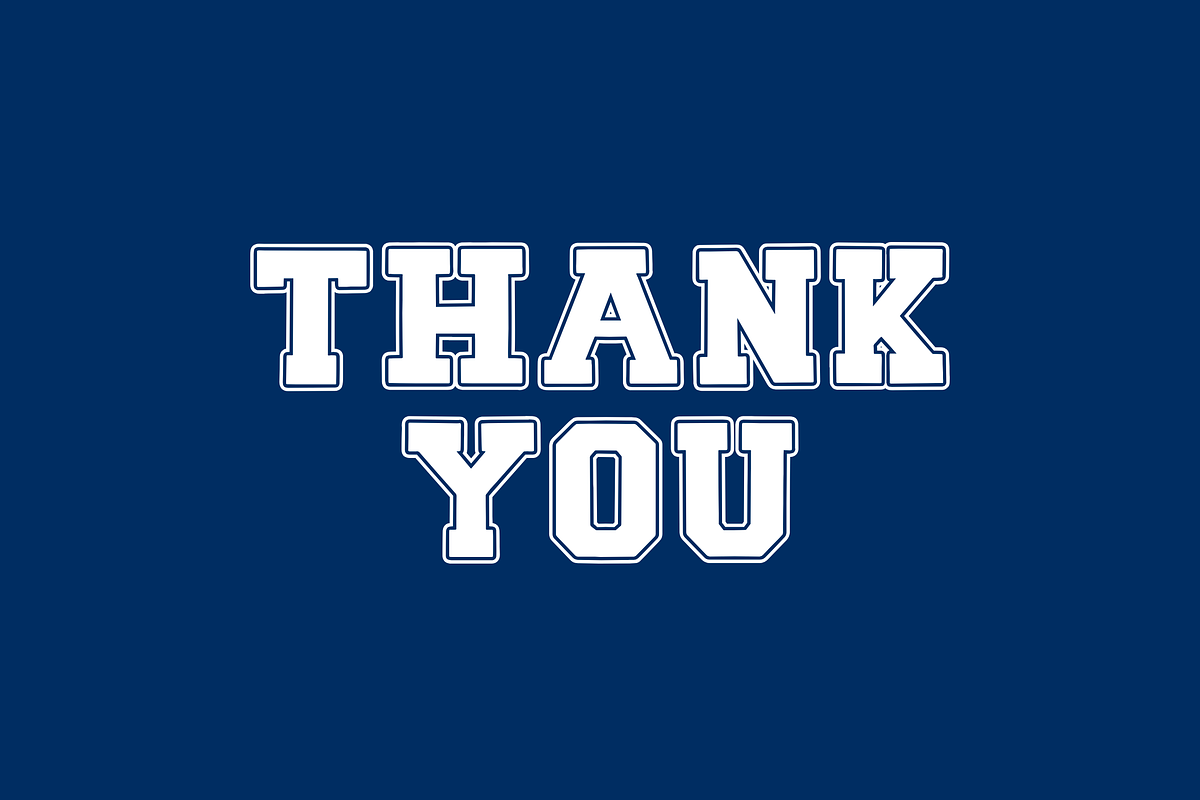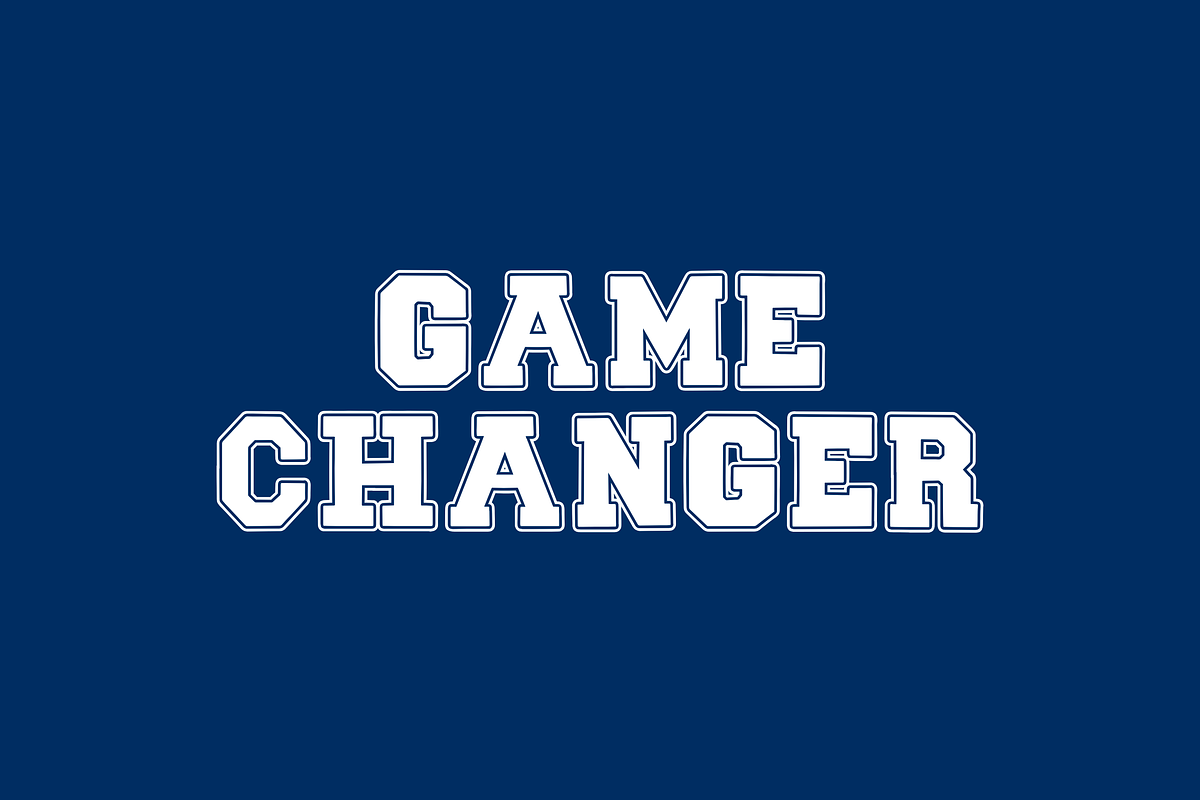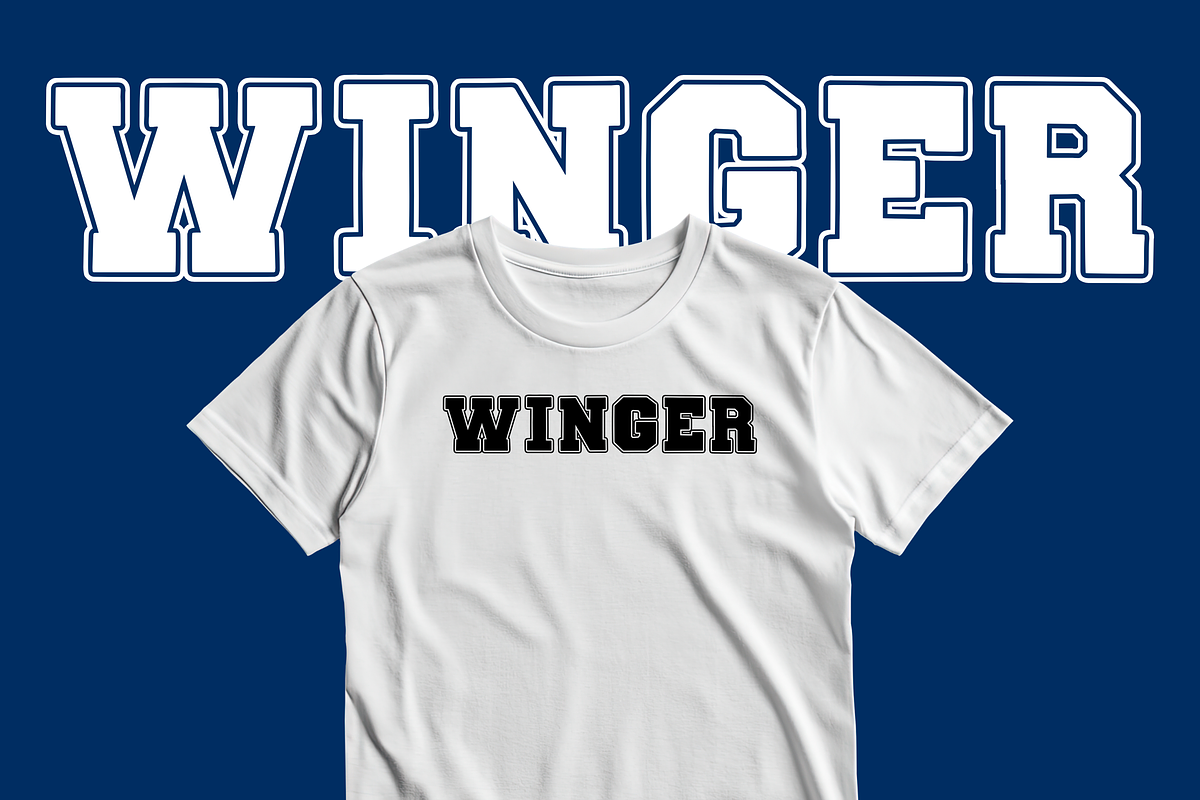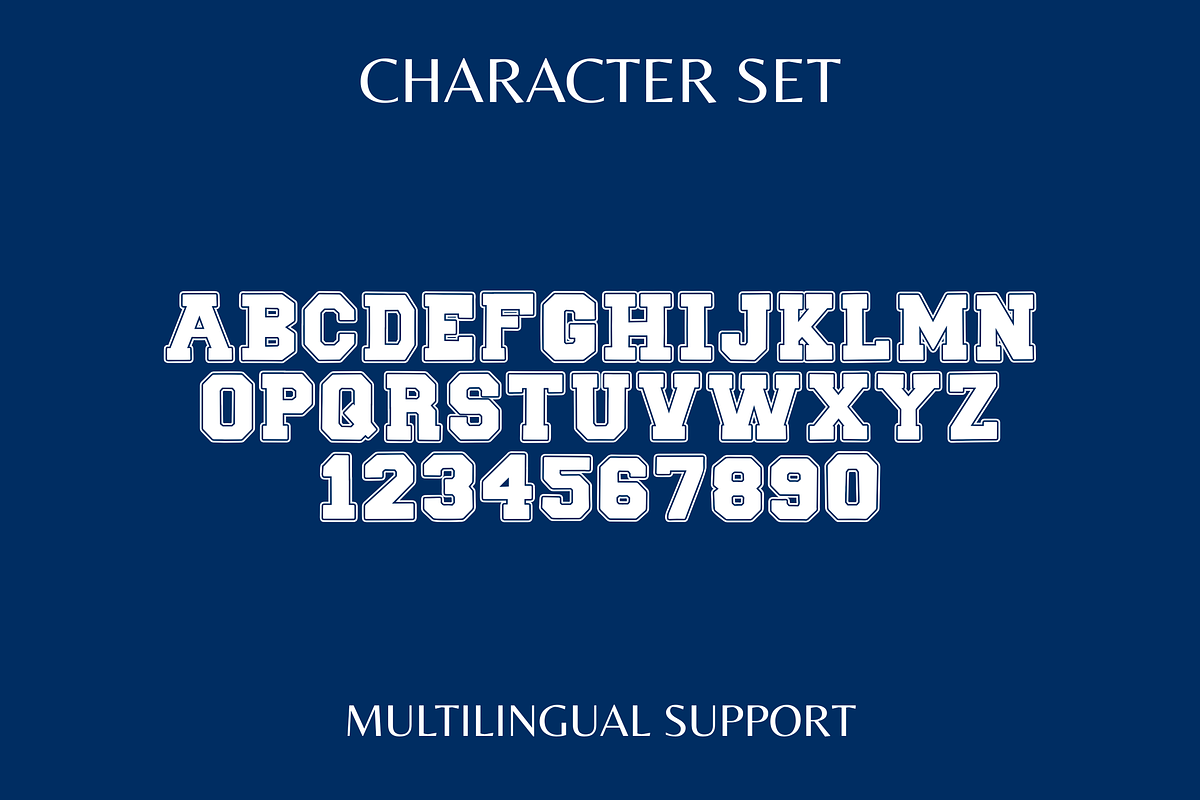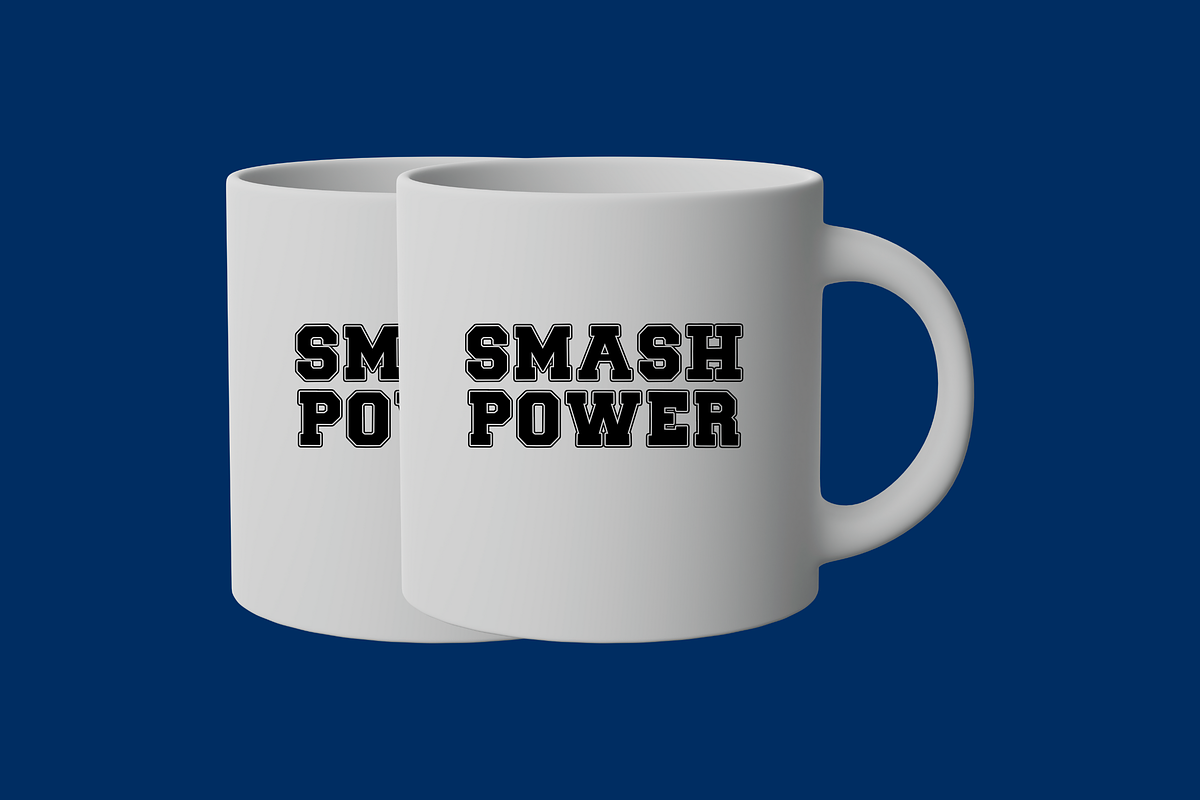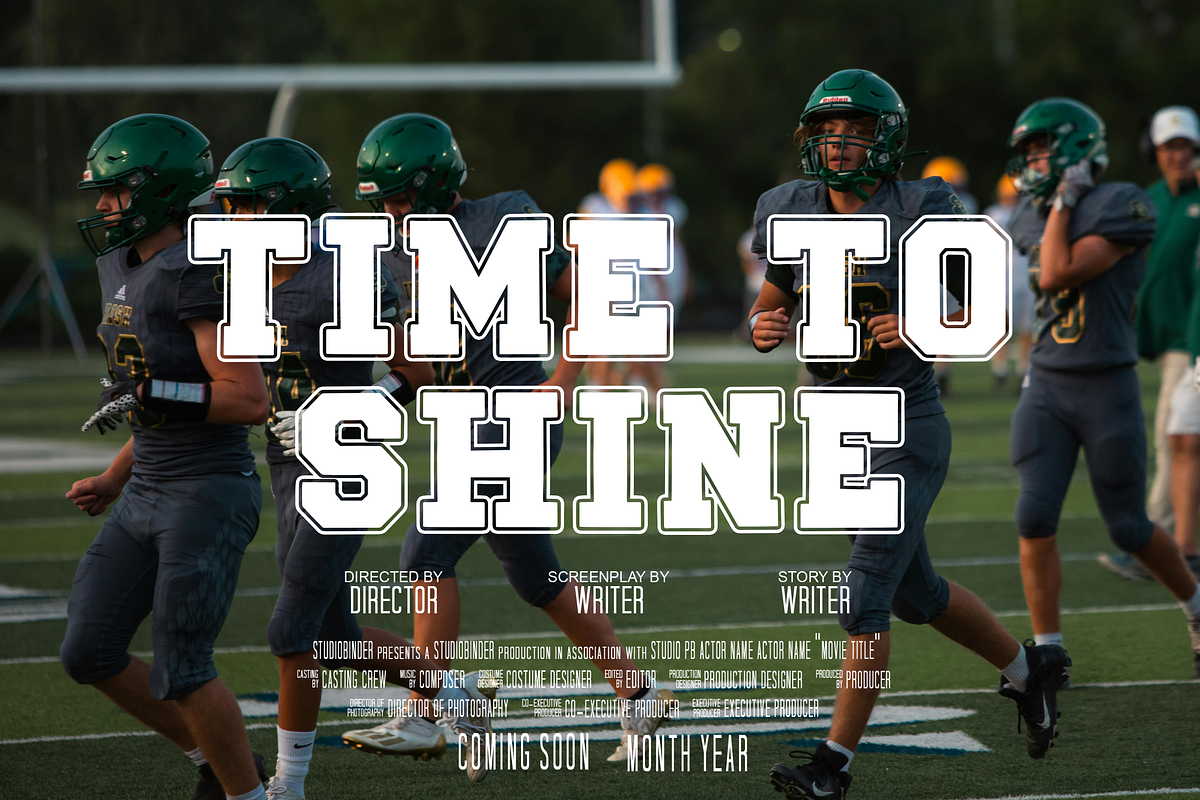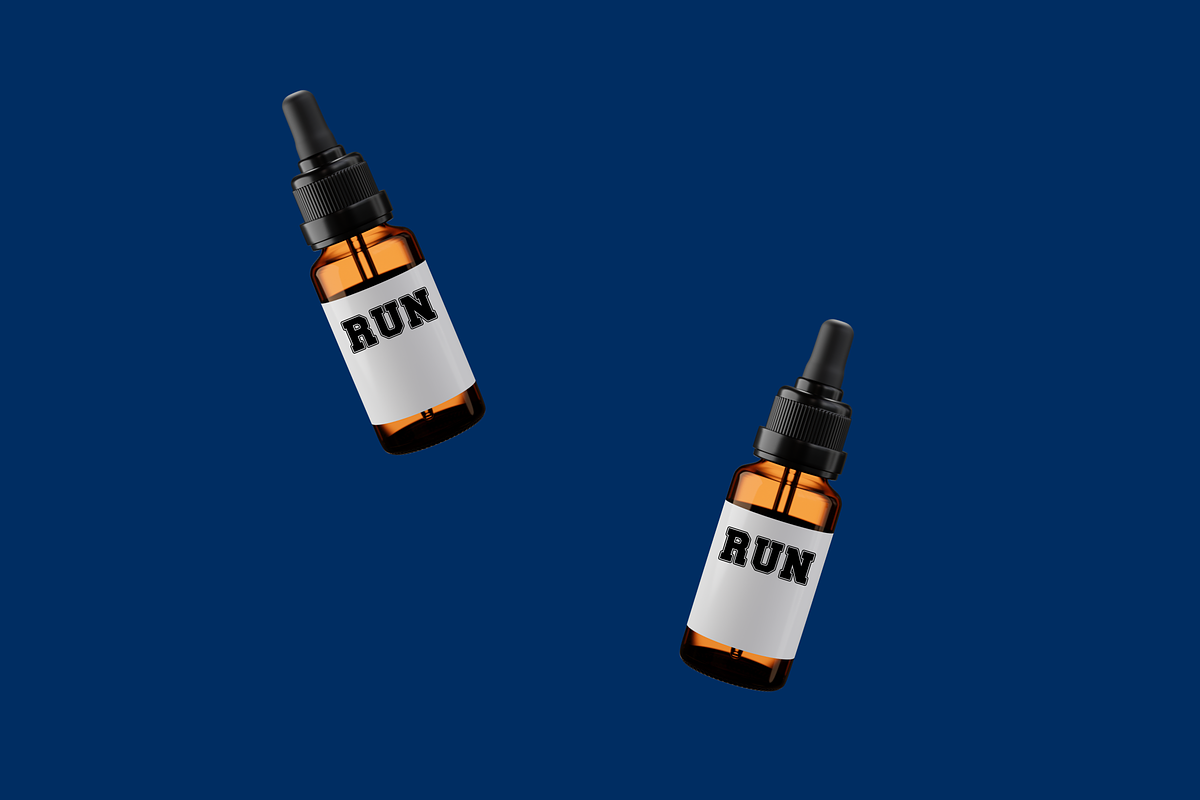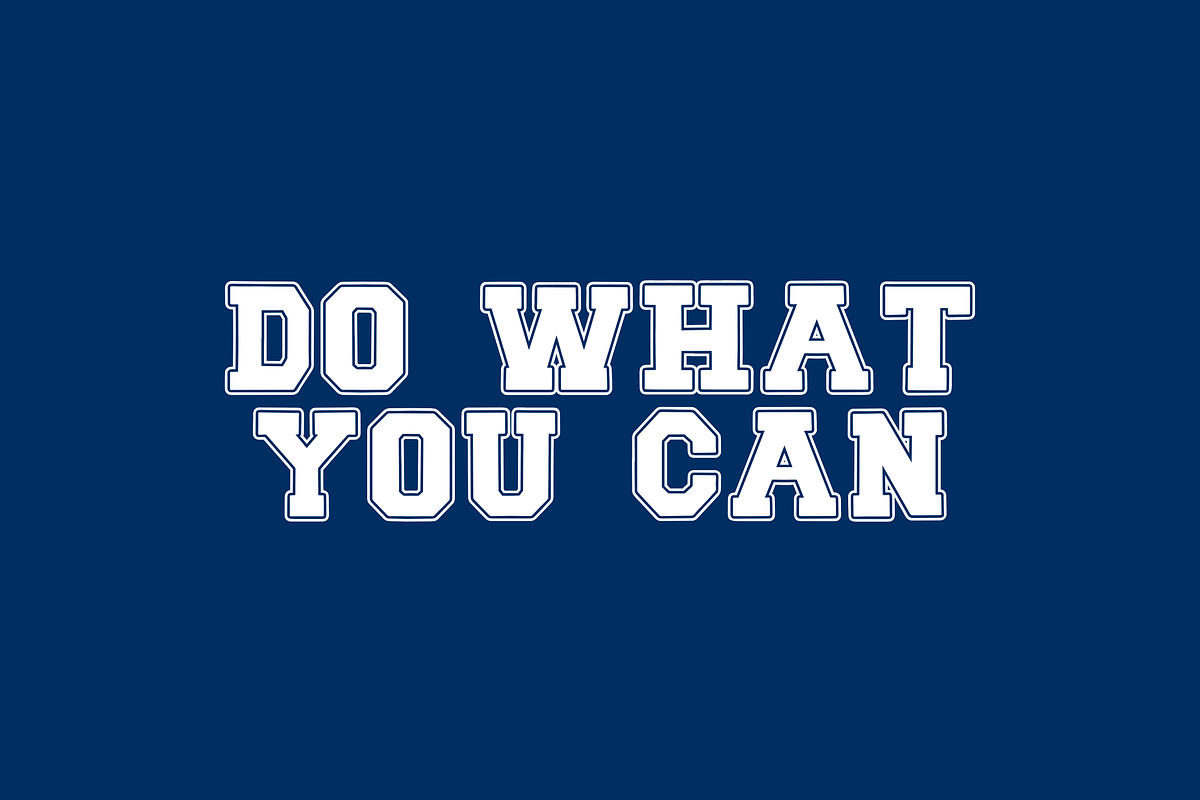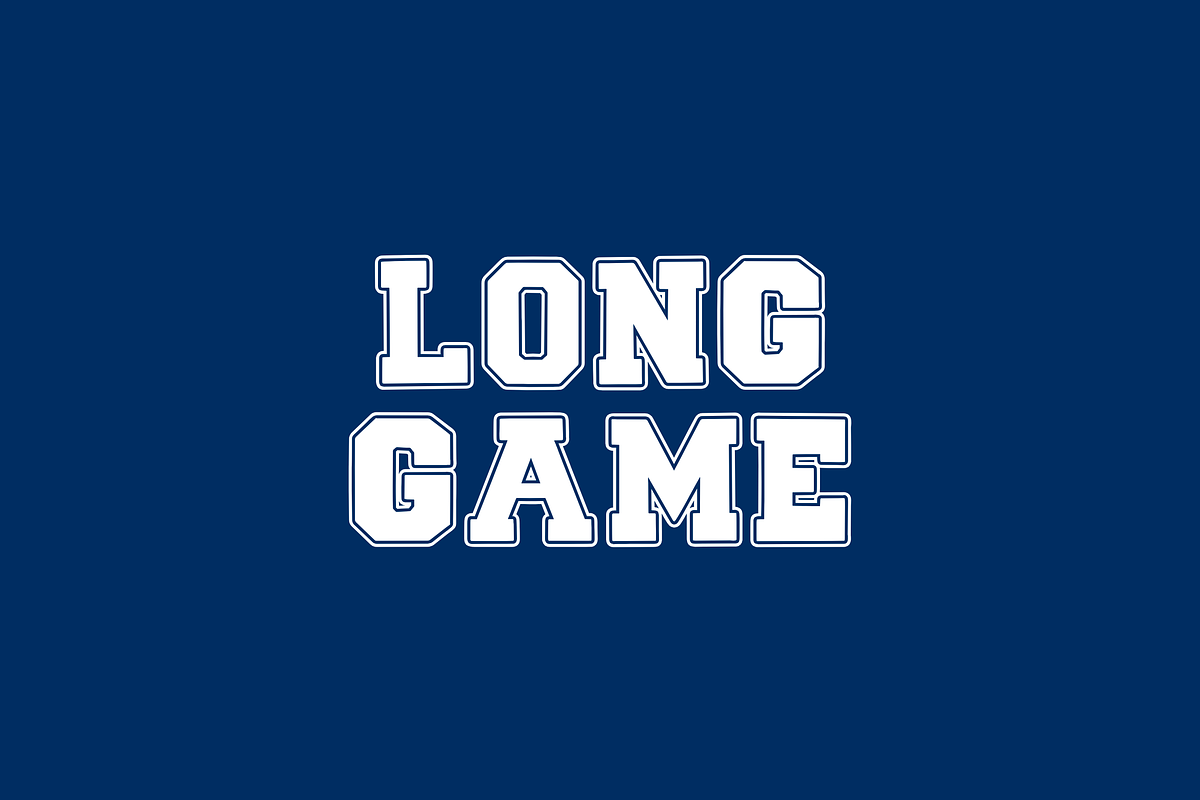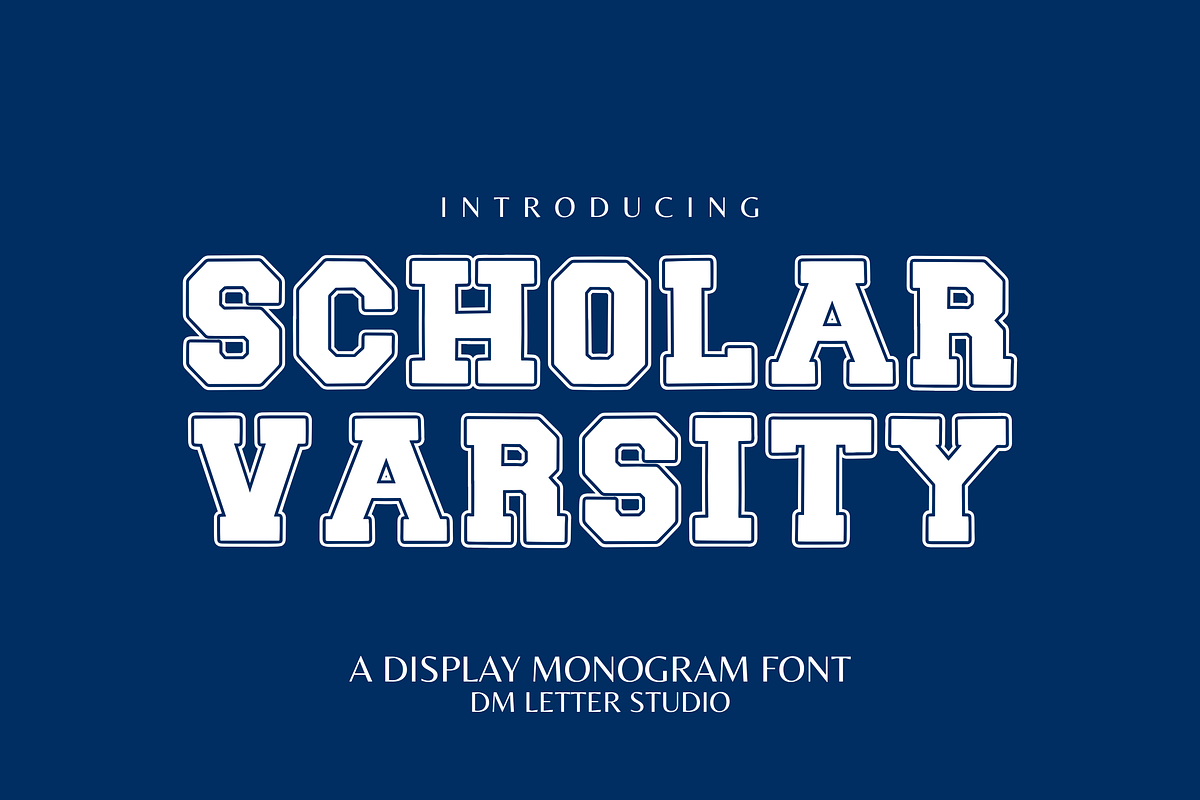
Scholar Varsity
Scholar Varsity – Classic Varsity Font for Athletic and Academic Designs
Scholar Varsity is a bold and structured college varsity font designed to bring that classic academic look to your creative projects. With sharp lines, blocky forms, and a clean all-caps layout, this typeface delivers timeless varsity style—perfect for sports apparel, university logos, graduation merchandise, team posters, and school-themed social media graphics.
Crafted to evoke the spirit of traditional school athletics and academia, Scholar Varsity features a strong, confident presence that immediately grabs attention. Its bold lettering mirrors the fonts seen on letterman jackets, sports jerseys, and old-school campus signs, making it ideal for both retro and modern designs with an academic flair.
Whether you're a designer creating mockups for high school merch, a crafter designing Cricut projects, or a small business selling print-on-demand products, Scholar Varsity offers the versatility and clarity you need. It pairs beautifully with script fonts for a dynamic contrast or can hold its own as the bold centerpiece of your layout.
If you're aiming to bring school pride, team spirit, or vintage varsity vibes into your design work, Scholar Varsity is the font that delivers authority and charm in equal measure.
Classic All-Caps Varsity Typeface
Perfect for School, Sports, and Academic Designs
Great for Posters, T-Shirts, Jerseys, Events, and Branding
Uppercase A–Z, Numbers, Punctuation, Multilingual Support